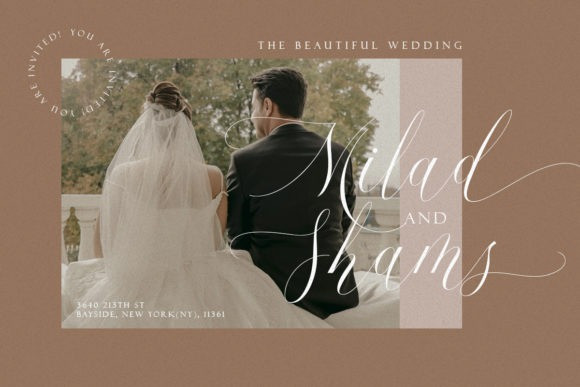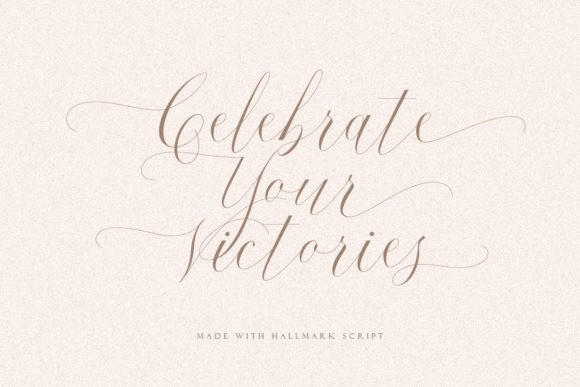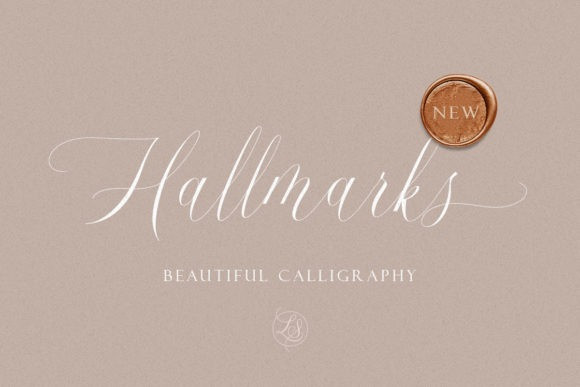
Hallmarks Calligraphy Font
Hallmarks is a stunning handwritten font which will add a delicate touch to make your design more soft and beautiful. This font is perfect for wedding invitation, quotes, branding, packaging and more.